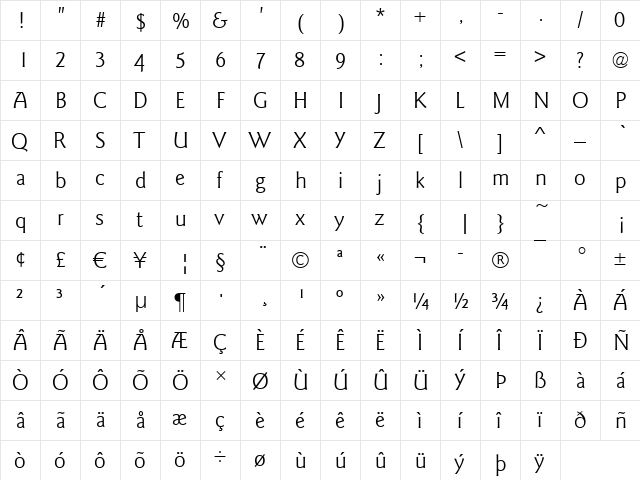
Goudy-Elegant Book
Design Context for Goudy-Elegant Typeface
Goudy-Elegant takes a measured approach to typography — its balanced proportions and neutral character make it a reliable workhorse for both digital and print work.